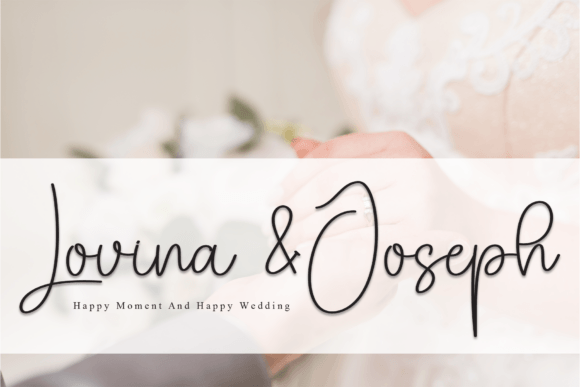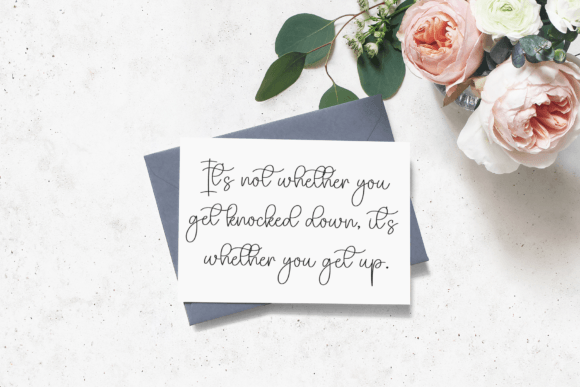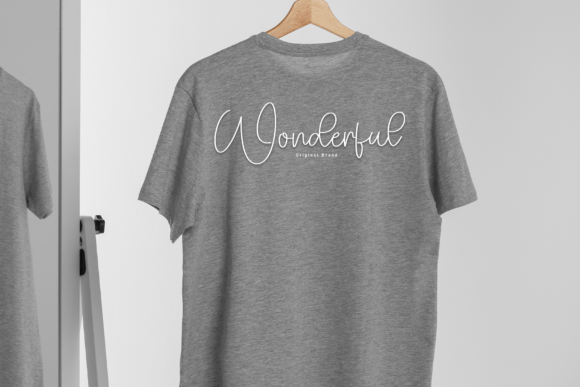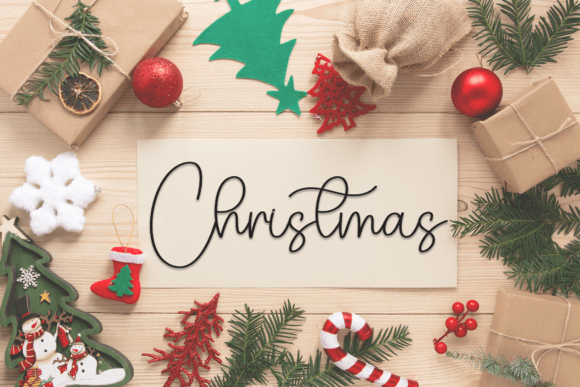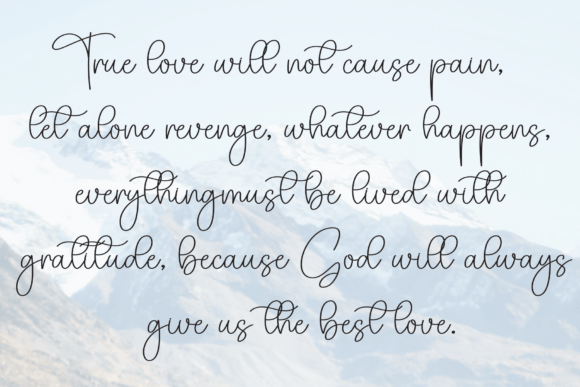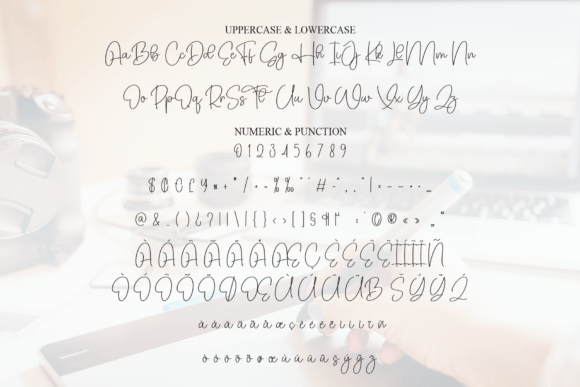
The Elusive Perfect Font: My Encounter with Calina Signature
Ah, the quest for the perfect font. We’ve all been there – scrolling through endless font libraries, trying to find that one font that brings our design to life. I recall working on a project for a client who wanted an elegant, sophisticated look for their branding. I must have tried a dozen fonts, but none seemed to fit the bill. That was until I stumbled upon Calina Signature.
First Impressions: A Love Affair with Calina Signature
As soon as I laid eyes on Calina Signature, I knew I had found something special. This stylish handwritten font has a smooth, flowing look that immediately caught my attention. Its elegant, cursive letters exude a sense of personality and sophistication, making it perfect for logos, invitations, and branding.
• ✨ Elegant and sophisticated design
• ✅ Smooth, flowing script that feels personal and refined
• 💫 Perfect for logos, invitations, and branding
• 🎨 Highly versatile and can be used for a variety of design projects
While Calina Signature is an excellent font, it’s not without its quirks. For instance:
• 🤔 Some users may find the font a bit too ornate for certain design projects
• ⚠️ May not be suitable for body text due to its cursive nature
The Story Behind Calina Signature: Designer Inspiration
Calina Signature was designed with the intention of creating a elegant, sophisticated font that would add a touch of class to any design. The designer aimed to create a font that would feel personal and refined, making it perfect for logos, invitations, and branding.
Q: Is Calina Signature suitable for body text?
A: While Calina Signature is a beautiful font, it’s not recommended for body text due to its cursive nature. It’s best used for headings, titles, and short paragraphs.
Q: Does Calina Signature support OpenType features?
A: Yes, Calina Signature supports OpenType features, which allow you to access additional glyphs and stylistic alternates.